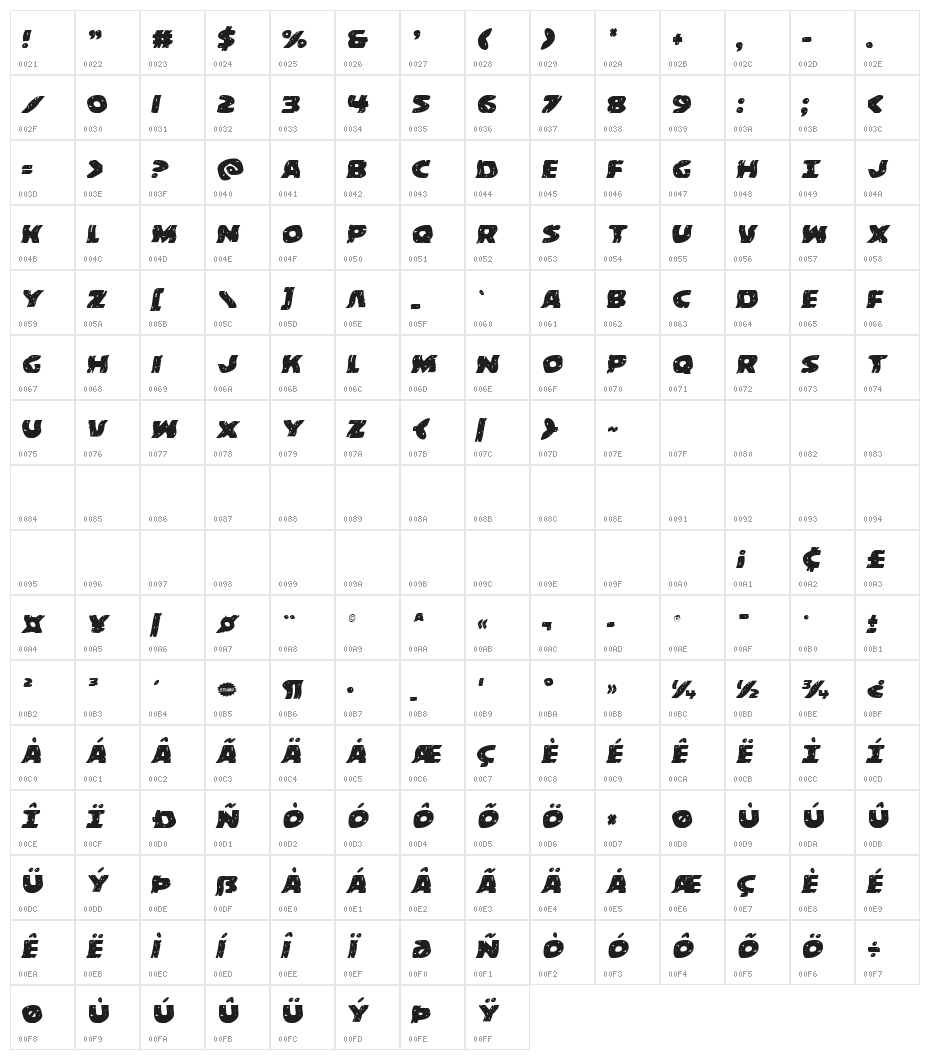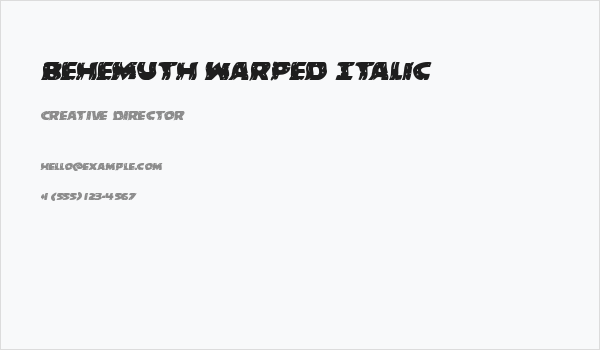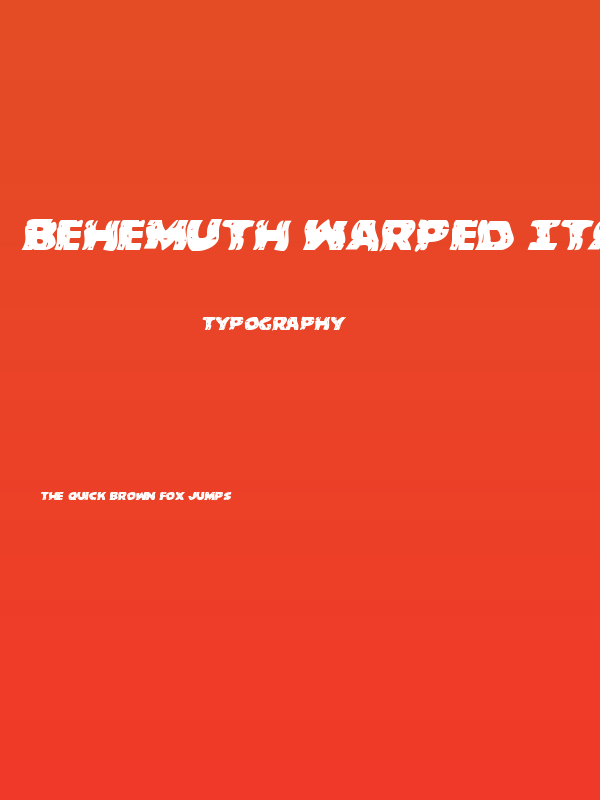
Behemuth Warped Italic Font
Behemuth Warped Italic Description
This font features a bold and dynamic style with a warped, italicized appearance. The characters are heavily stylized with a unique, distorted look that gives them a sense of movement and energy. The thick strokes and irregular shapes create a dramatic effect, making it ideal for attention-grabbing designs. The font includes both uppercase and lowercase letters, numbers, and a variety of special characters, all maintaining the same bold and warped aesthetic. Its playful yet edgy design is perfect for projects that require a standout typeface.
Proposed ProjectsIdeal for posters, album covers, video game graphics, and any project needing a bold, eye-catching typeface.